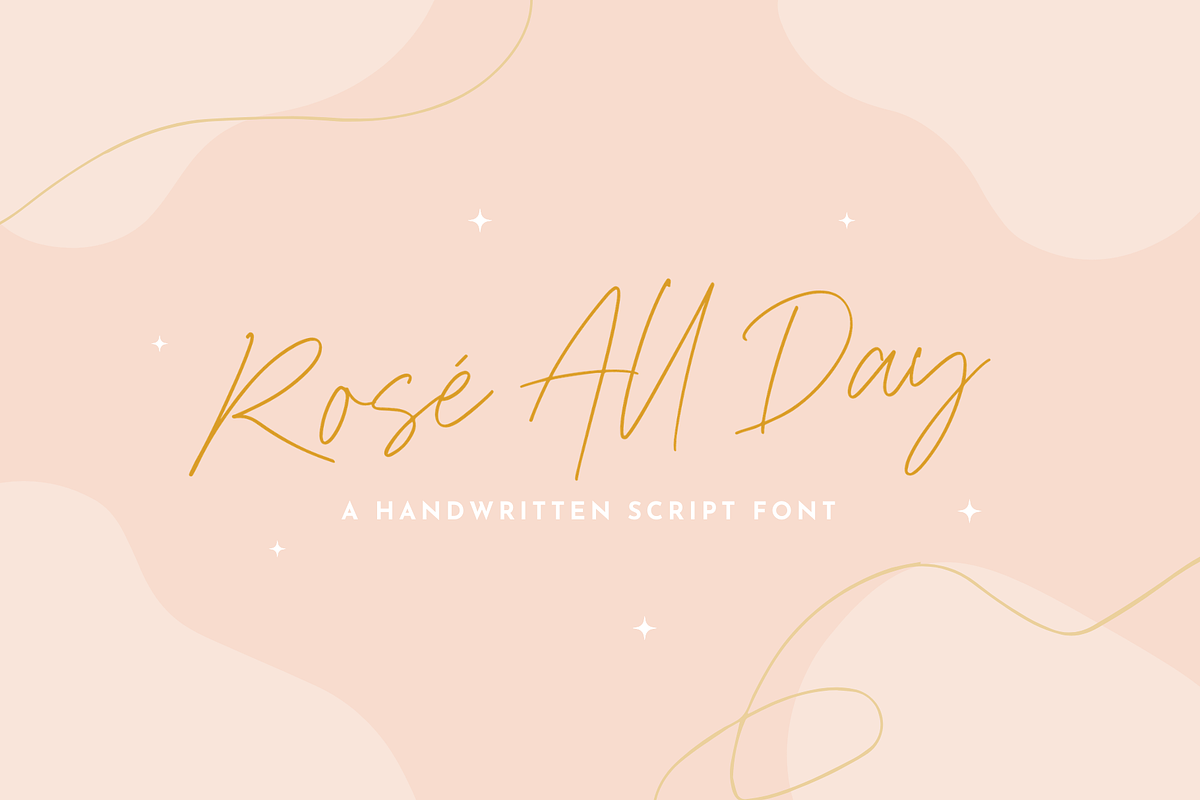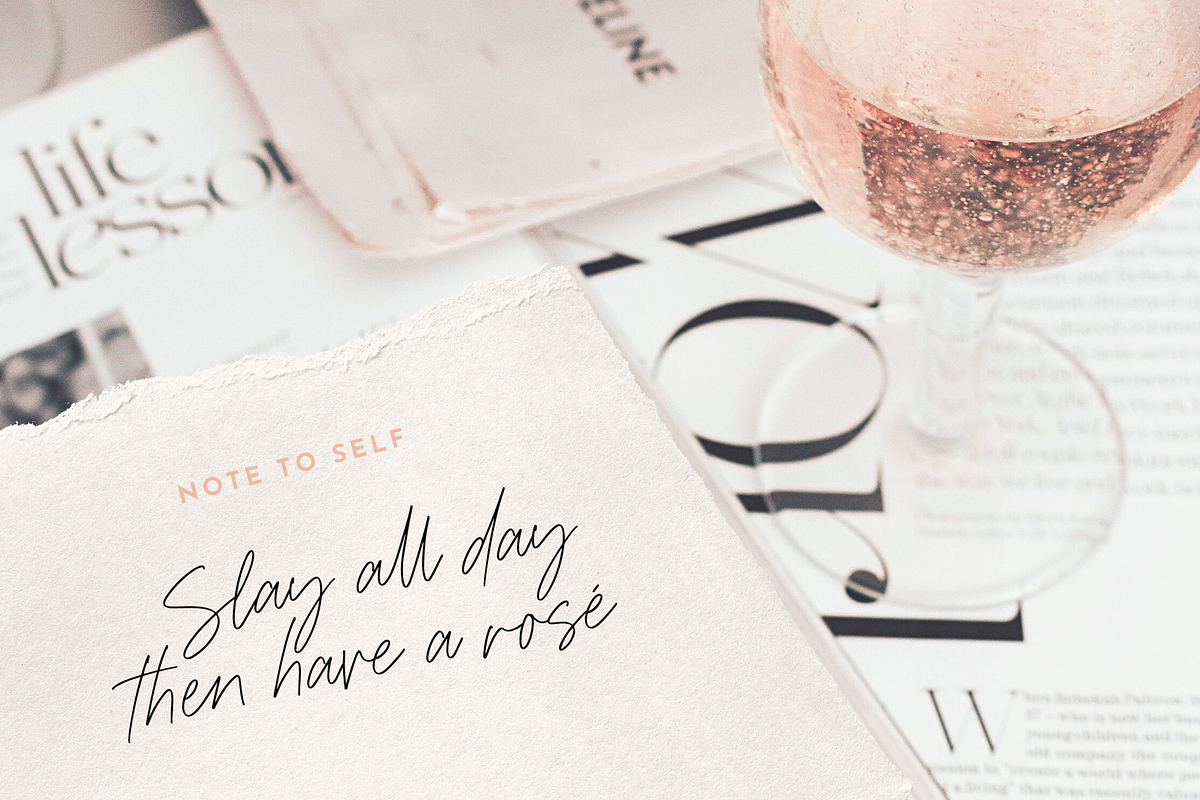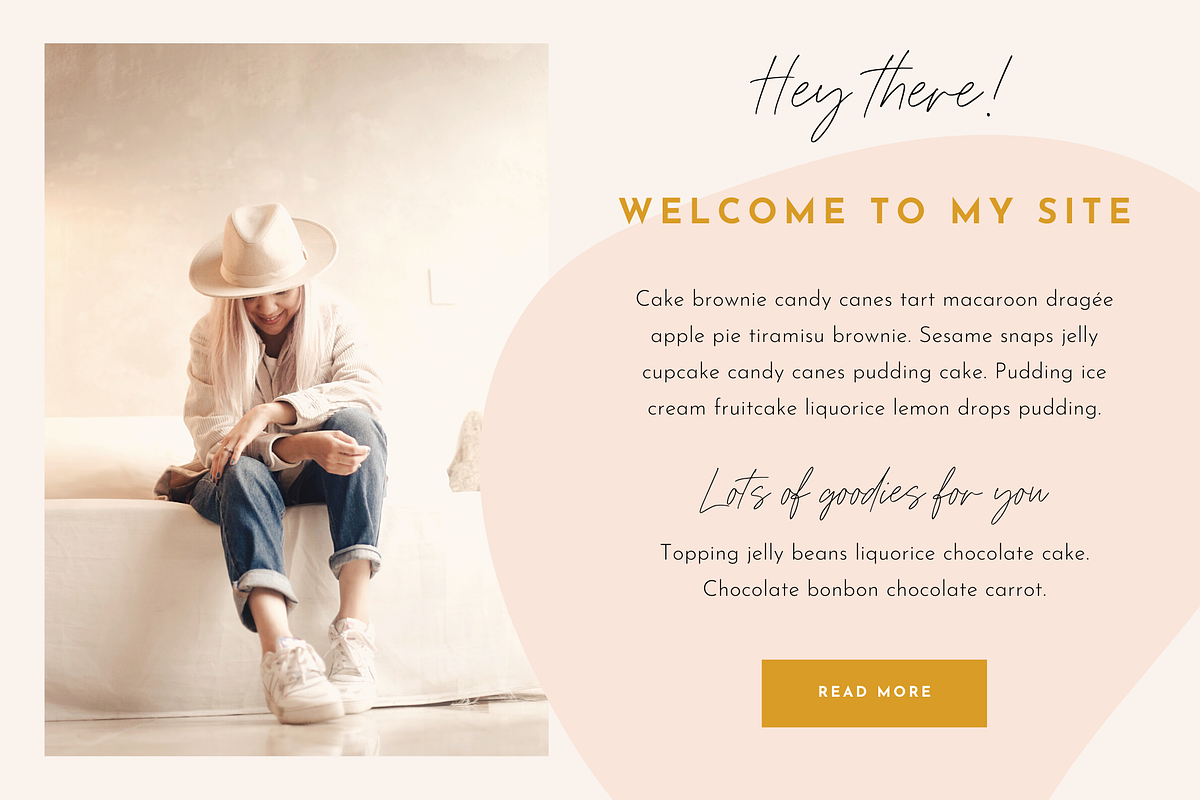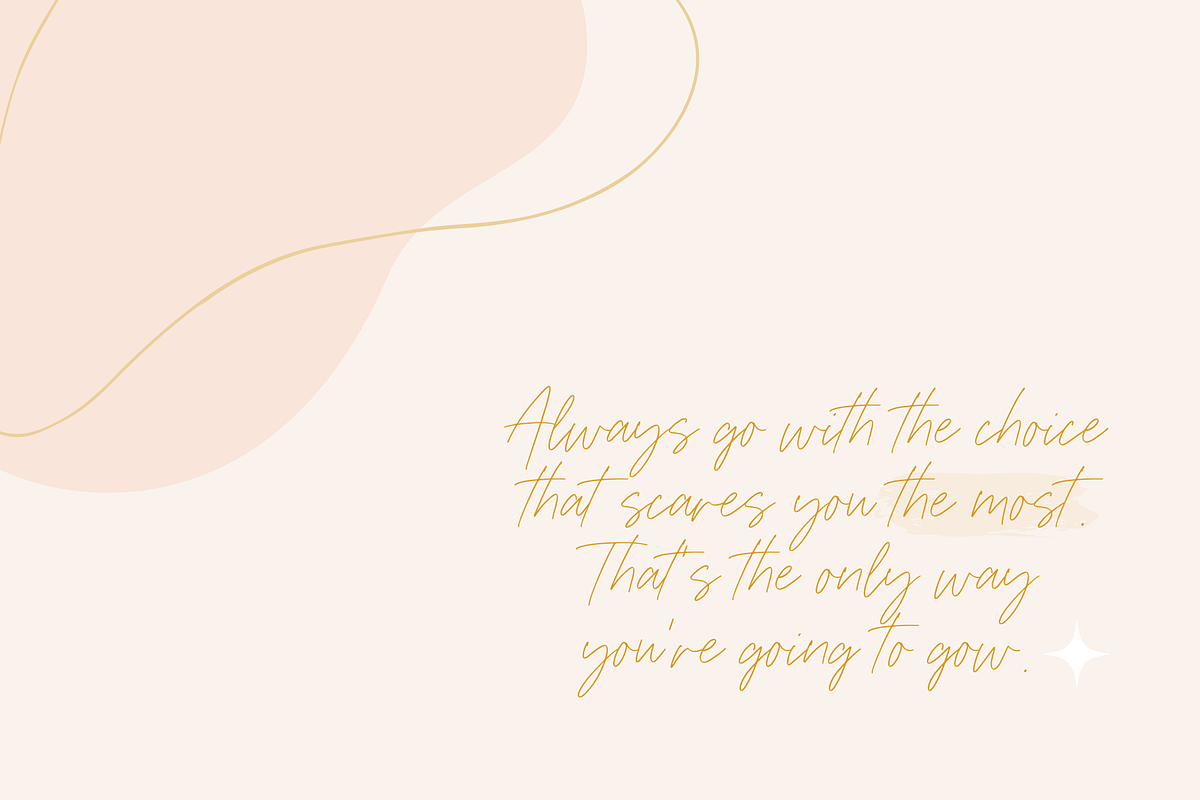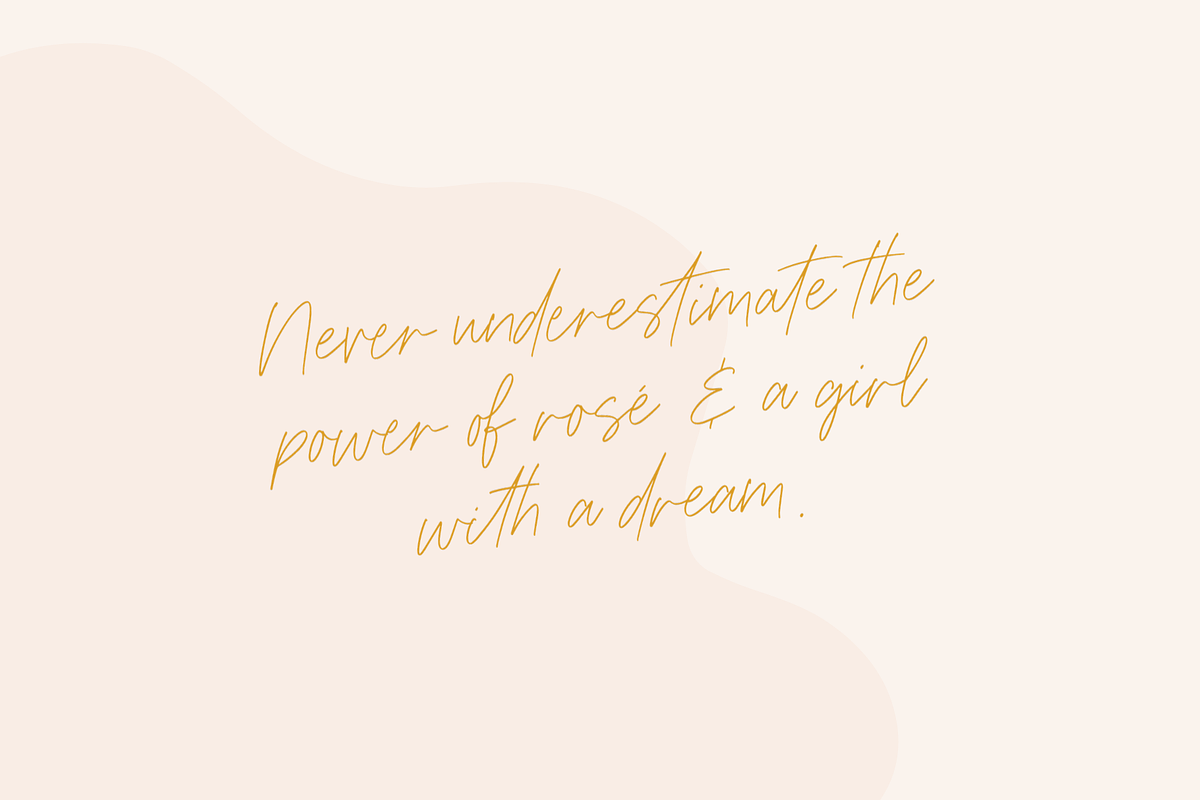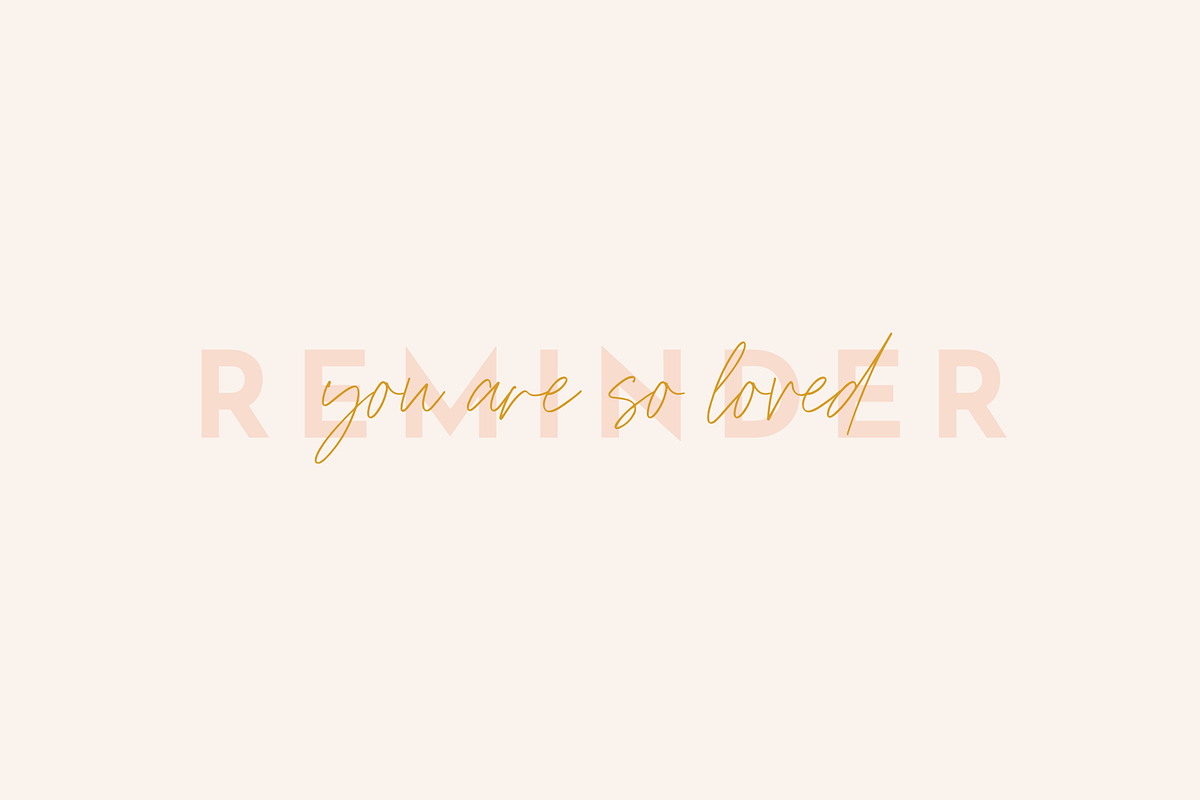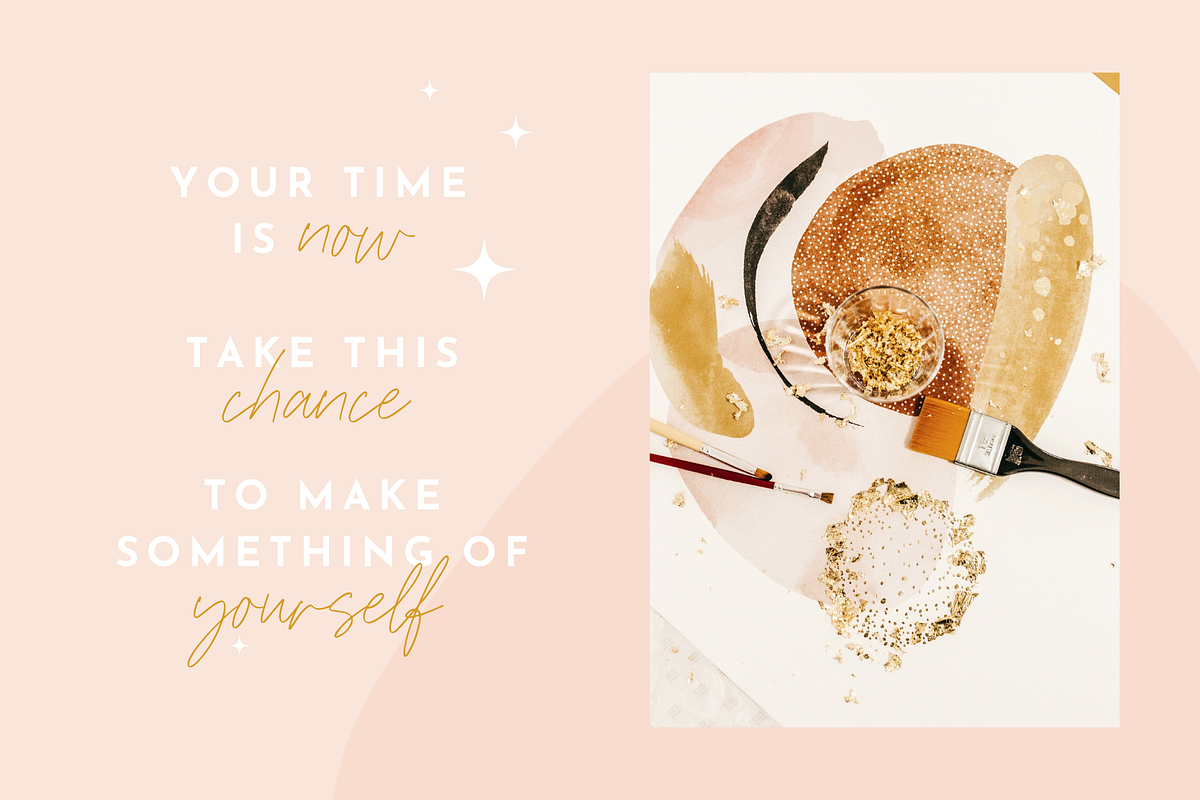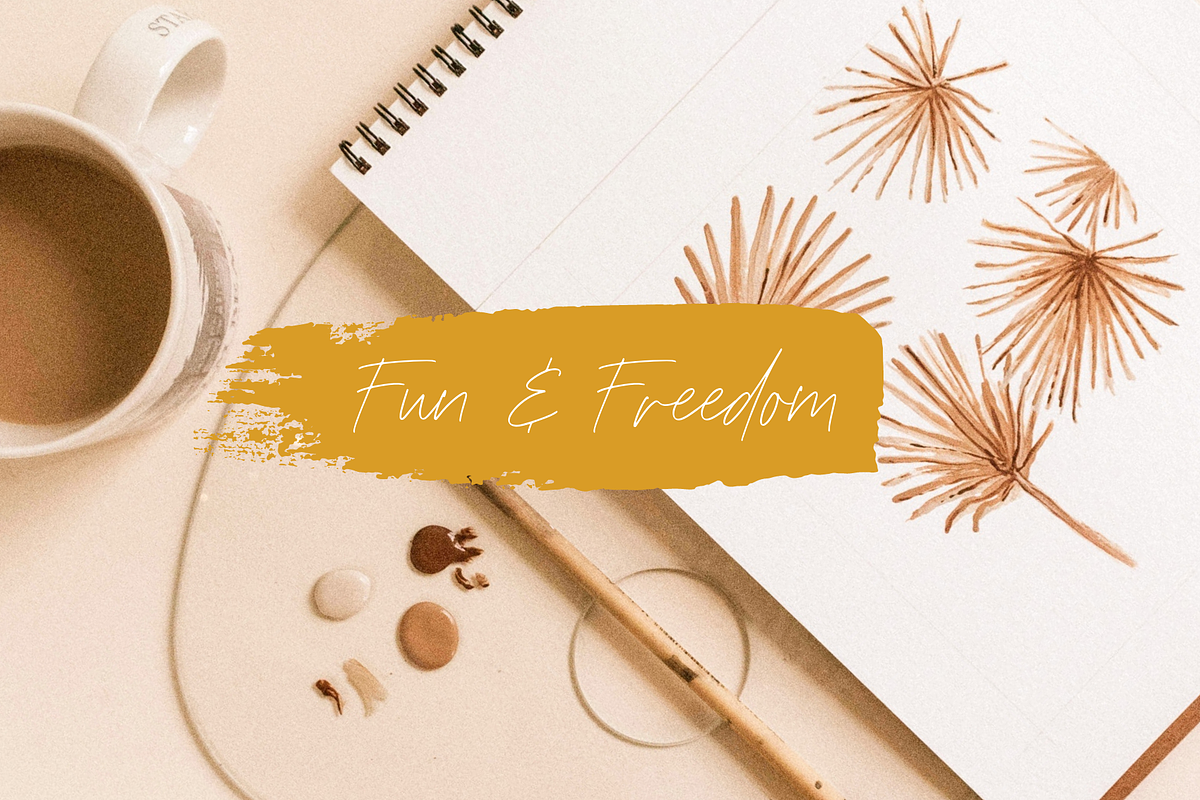
Realistic Handwritten Script Font
Rosé All Day is a modern handwritten script font designed to have that realistic pen-to-paper effect. Perfect for adding personality to a website design with a bit of handwritten text mixed in.
Realistic Handwritten Script Font by Design Pixie fits naturally into Branding, posters, packaging, typography.